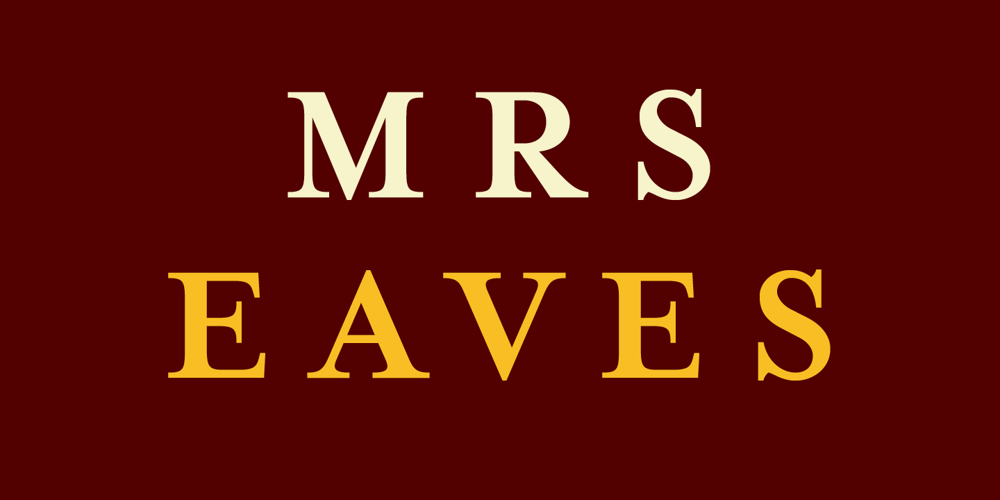
Mrs Eaves Font Family was designed by Zuzana Licko and published by Emigre. Mrs Eaves contains 5 styles and family package options. This typeface is named after Sarah Eaves, the woman who became John Baskerville’s wife. As Baskerville was setting up his printing and type business, Mrs. Eaves moved in with him as a live-in housekeeper, eventually becoming his wife after the death of her first husband, Mr. Eaves. Like the widows of Caslon, Bodoni, and the daughters of Fournier, Sarah similarly completed the printing of the unfinished volumes that John Baskerville left upon his death.